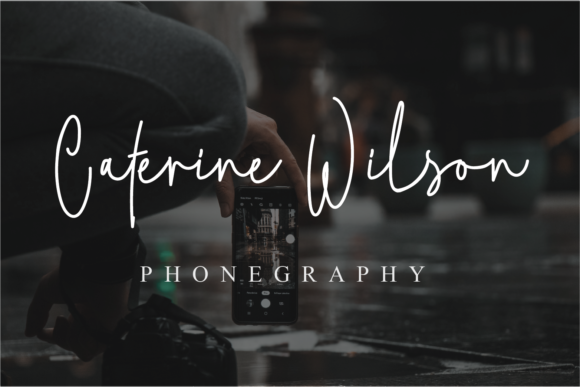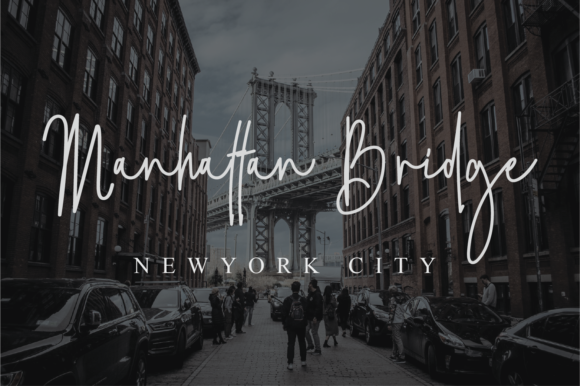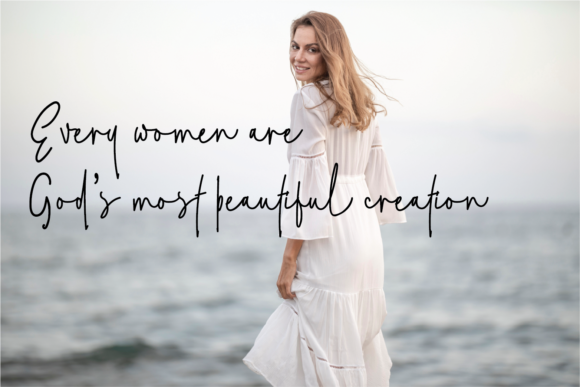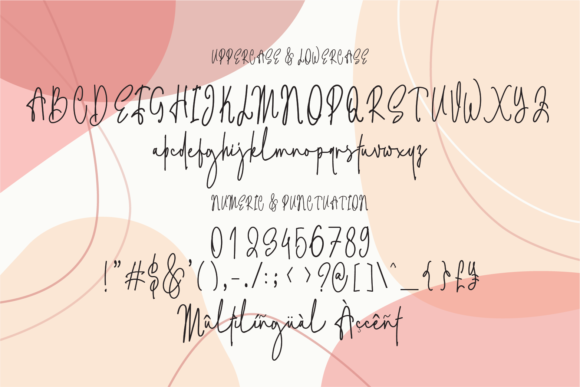
Discovering the Perfect Font: Sigennate Font
As a designer, you know that finding the right font can be the key to unlocking a truly stunning visual identity. I still remember the moment I stumbled upon a beautiful logo that caught my eye – it was the perfect blend of elegance and playfulness. The font used was none other than the Sigennate Font, and I was immediately hooked. Its unique, refined script style added a touch of sophistication to the design that I couldn’t resist.
For designers, finding a high-quality font that can elevate a creative project is invaluable. That’s exactly what the Sigennate Font offers – a free download that can add a professional touch to your designs. With its transparent background and all-around unique touch, this font is a must-have design resource for anyone looking to take their branding and quotes to the next level.
Key Features of Sigennate Font
- Transparent background, making it easy to integrate into complex designs.
- Designed with precision, featuring a resolution of 300 DPI for crisp, high-definition output.
- Unique, modern aesthetic that can be used in a variety of creative projects, from branding to digital art.
- Perfect for designers seeking a high-quality, free design resource to elevate their work.
Honest Review: Sigennate Font
I recently stumbled upon the Sigennate Font while searching for a free download for my latest creative project. I must say, I was pleasantly surprised by the high quality of this design resource.
What works well is the font’s versatility. It’s perfect for any project that requires a clean and modern look. I particularly liked the transparent background feature, which makes it easy to use in a variety of design scenarios.
The font is well-suited for digital design projects, such as:
However, I did encounter a few limitations. The font is only available in a limited number of weights, which may not be ideal for projects that require a lot of font variation.
Overall, I’m impressed with the Sigennate Font. It’s a great design resource for any creative project, and the free download option is a definite bonus.
How to Use Sigennate Font
The Sigennate Font is ideal for a variety of creative projects, including:
- Presentation slides
- Report templates
Alternatives to Sigennate Font
Great Vibes Font is a high-quality, elegant script font ideal for creative projects requiring a touch of sophistication. It is available for free download and features a transparent background, making it perfect for overlaying on images or graphics. Great Vibes Font is suitable for designing logos, typography, and other visual elements where a unique and stylish look is desired.
Compared to Sigennate Font, Great Vibes Font has a more refined and sophisticated appearance, making it suitable for more formal and professional applications. While Sigennate Font is more playful and fun, Great Vibes Font is ideal for projects requiring a sense of luxury and elegance.
Pacifico Font is a beautiful, high-quality script font that is perfect for creative projects, especially those requiring a relaxing and calm atmosphere. It features a transparent background and is available for free download, making it a valuable design resource for designers. Pacifico Font is suitable for designing logos, typography, and other visual elements where a sense of serenity and calmness is desired.
Compared to Sigennate Font, Pacifico Font has a more laid-back and relaxed appearance, making it suitable for projects requiring a sense of tranquility and peace. While Sigennate Font is more playful and energetic, Pacifico Font is ideal for projects requiring a sense of calmness and serenity.
Does the Sigennate Font include a transparent background?
Yes, the Sigennate Font includes a transparent background option, making it ideal for creating stunning designs with a clean and minimalist aesthetic. This feature allows you to easily combine the font with other design elements, such as images or shapes, to create visually appealing compositions.